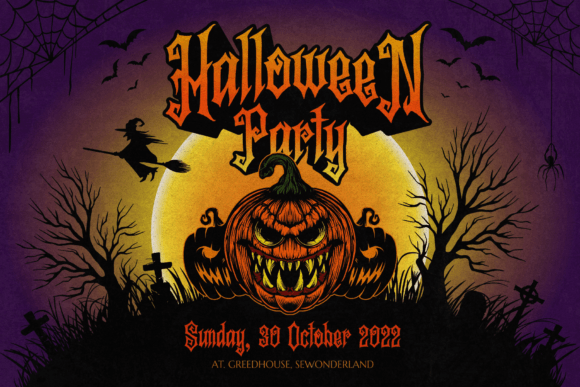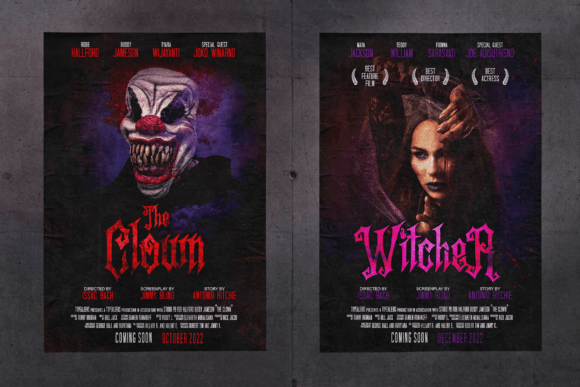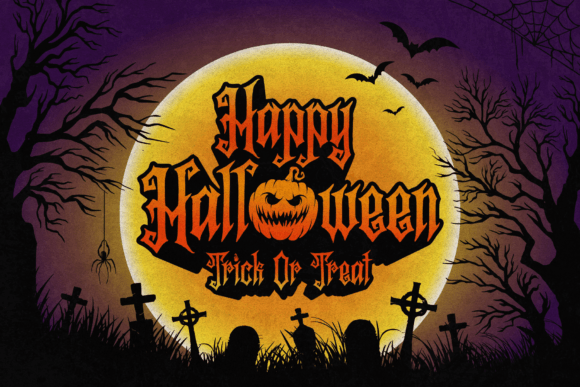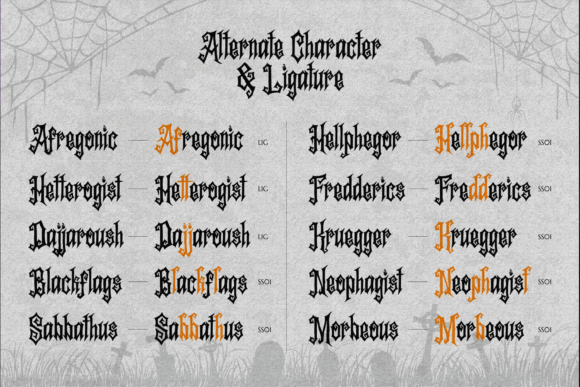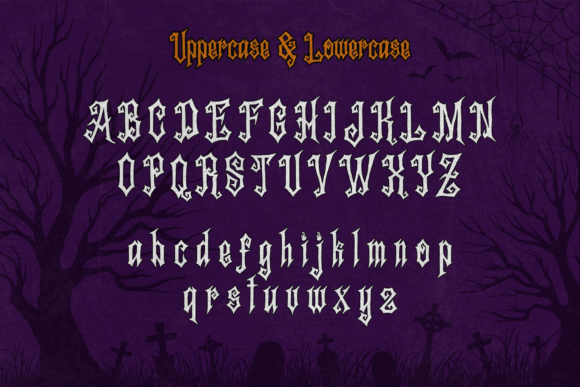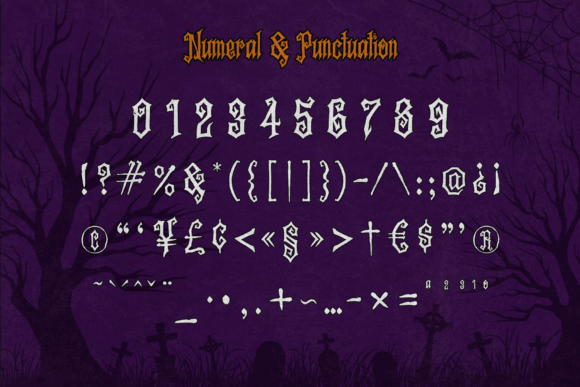
The Frightfully Amazing Frenkistan Font: A Designer’s Dream for Horror Themes
I’ll never forget the time I was working on a Halloween-themed project for a client, and I just couldn’t find the perfect font to capture the spooky essence. The client wanted something that would send shivers down the spine, but everything I found was either too generic or too over-the-top. That’s when I stumbled upon the Frenkistan font, a blackletter font designed specifically for horror themes like Halloween events, horror movies, and other spine-tingling experiences.
A Font that Embodies the Spirit of Horror
Frenkistan is more than just a font – it’s an experience. With its rough, hand-crafted style, it’s like the digital equivalent of a creepy, abandoned mansion. The vector process used to create it hasn’t refined the rough parts, leaving it with a delightfully distressed look that’s perfect for horror-themed projects. Technically, it’s digital hand lettering, which adds to its charm and makes it feel like a one-of-a-kind, handmade piece.
What I Love About Frenkistan
- ✨ Perfect for horror themes: Frenkistan is designed specifically for horror-themed projects, making it a go-to font for any spooky endeavor.
- ✅ Rough, hand-crafted style: The font’s distressed look adds a level of authenticity and uniqueness to any project.
- 🔥 Highly versatile: Frenkistan can be used for a wide range of projects, from Halloween events to horror movies and more.
While Frenkistan is an amazing font, it’s not without its quirks. For example:
- 🤔 Limited use outside of horror themes: Frenkistan is so closely associated with horror that it might not be the best choice for other types of projects.
- ⚠️ May not be suitable for small text: The font’s distressed look can make it difficult to read in small sizes.
The Backstory Behind Frenkistan
Frenkistan was designed with one goal in mind: to create a font that would send chills down the spine. The designer, who wishes to remain anonymous, drew inspiration from classic horror movies, haunted mansions, and creepy folklore. The result is a font that’s equal parts spooky and sophisticated.
Q: What type of projects is Frenkistan best suited for?
A: Frenkistan is perfect for horror-themed projects, such as Halloween events, horror movies, and spooky marketing campaigns.